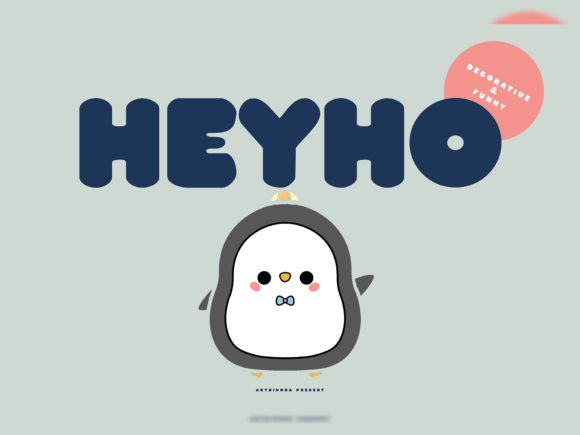
Introducing Heyho Font - The Ultimate Display Font for Tiny Text and Bold Expressions!
In a digital world flooded with visual noise, it's the subtle touches that truly capture attention. Meet Heyho Font, the display font that packs a punch, making your designs pop with personality and readability. Its bold lines and conservative curves dance together, creating a harmonious blend of playfulness and professionalism.
With Heyho Font, you'll discover a font that's not just aesthetically pleasing but also incredibly versatile. Its thick, solid lines ensure effortless readability, even in the tiniest of text sizes. Whether you're designing logos, headlines, or invitations, Heyho Font delivers a lasting impact that leaves a lasting impression.
But what truly sets Heyho Font apart is its emotional resonance. Its bold strokes and playful bends evoke a sense of joy and excitement, captivating your audience from the very first glance. It's a font that speaks to the heart, inviting your readers to engage with your content on a deeper level.
So, unleash your creativity with Heyho Font and let your designs shine brighter than ever before. From eye-catching logos to captivating headlines, this font has the power to transform your projects into masterpieces. Embrace the expressive energy of Heyho Font and watch as your designs come alive with personality and purpose.